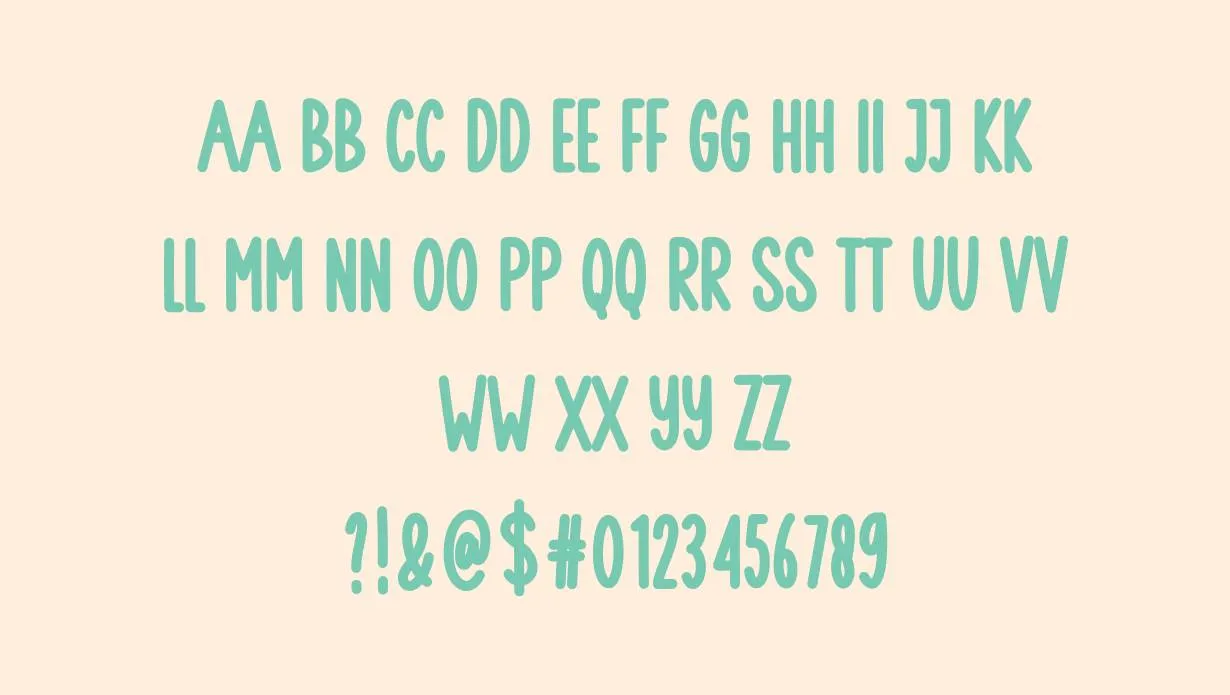
Capture the essence of sunshine and warmth with Summer Font. Its light and breezy style makes it perfect for projects that embrace the carefree spirit of summer. Whether you’re designing beach party invitations or crafting materials for a vacation-themed event, Summer Font’s relaxed and friendly characters bring a sunny and cheerful vibe to your text.
| Name | Summer Font |
| Designer | Alif Ryan Zulfikar |
Let your words radiate positivity and freshness with Summer Font, the perfect choice for projects that embody the spirit of the season.